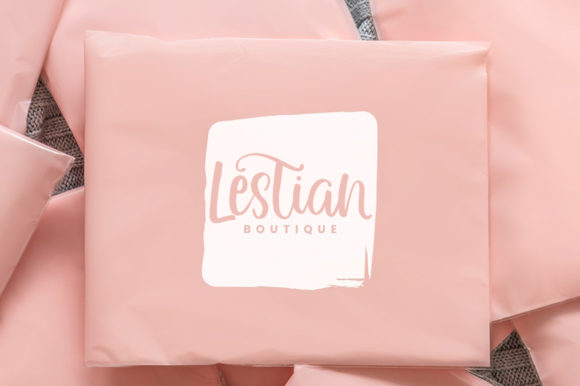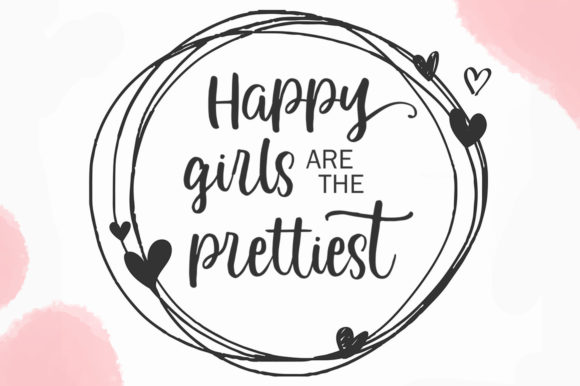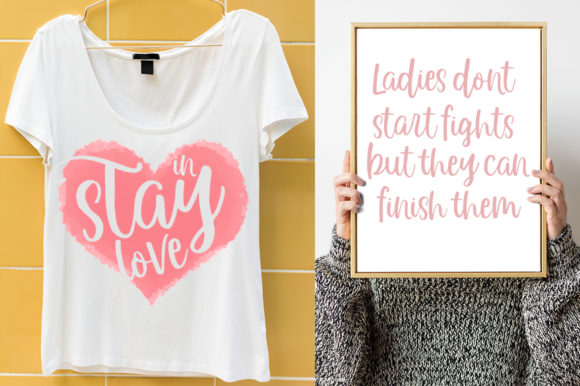
Astella Script Font
About the Astella Script Font
Introducing the Astella Script Font, a beautifully crafted typeface designed to elevate your creative projects. Astella is inspired by classic typography and brings its own unique style to any design project. This fantastic script font is best suited for headlines of all sizes, as well as for blocks of text that have both maximum and minimum variations. Whether it’s for web, print, moving images or anything else – Astella will look spectacular.
Astella’s elegant, slightly playful personality makes it ideal for branding projects requiring a touch of sophistication, particularly logos, short marketing taglines, and packaging for luxury goods or boutique products. It also excels in wedding invitations and other stationery where a sense of classic charm is desired. However, its decorative nature makes it unsuitable for body text or UI elements; readability suffers at smaller sizes or within long passages.
Pairing Astella with a clean sans-serif like Lato or Open Sans for body copy provides excellent contrast and visual balance. For a more modern feel, a geometric sans-serif such as Montserrat would complement its curves. Consider a simple serif like Merriweather for projects needing a touch of traditional formality alongside Astella’s script.
Avoid using Astella in applications demanding high readability, such as websites with large amounts of text or user interfaces. Its strength lies in making a statement, not in conveying lengthy information.
Astella Script Font Usage Examples
Astella Script Font Example